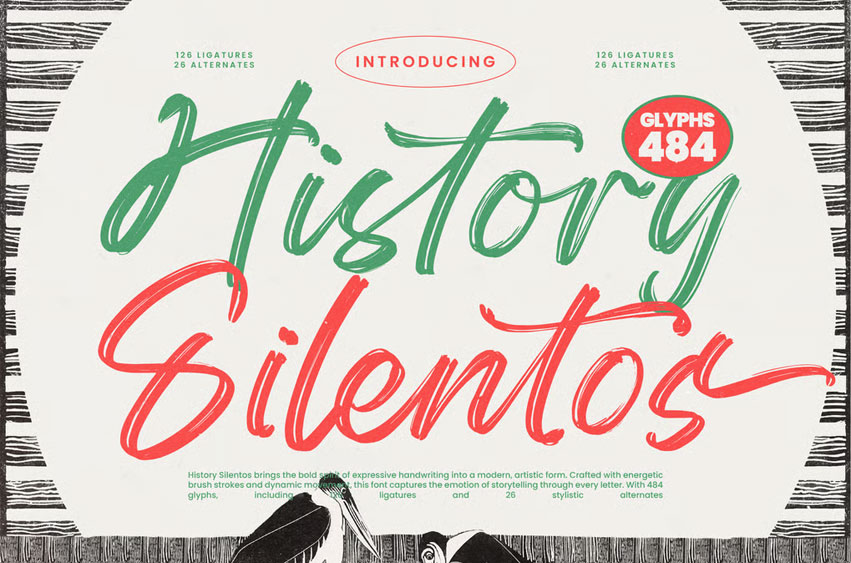
History Silentos Font is an expressive brush-script font that blends bold hand-painted energy with refined modern craftsmanship, delivering strokes that feel organic, dynamic, and full of motion. Designed with 484 glyphs, 126 ligatures, and 26 stylistic alternates, this typeface captures the raw emotion of handwritten storytelling while maintaining clean structure for professional use.
Perfect for branding, posters, packaging, editorial titles, social media visuals, and creative identities that need a loud, artistic presence, History Silentos brings personality, rhythm, and a vibrant handcrafted spirit into every design.